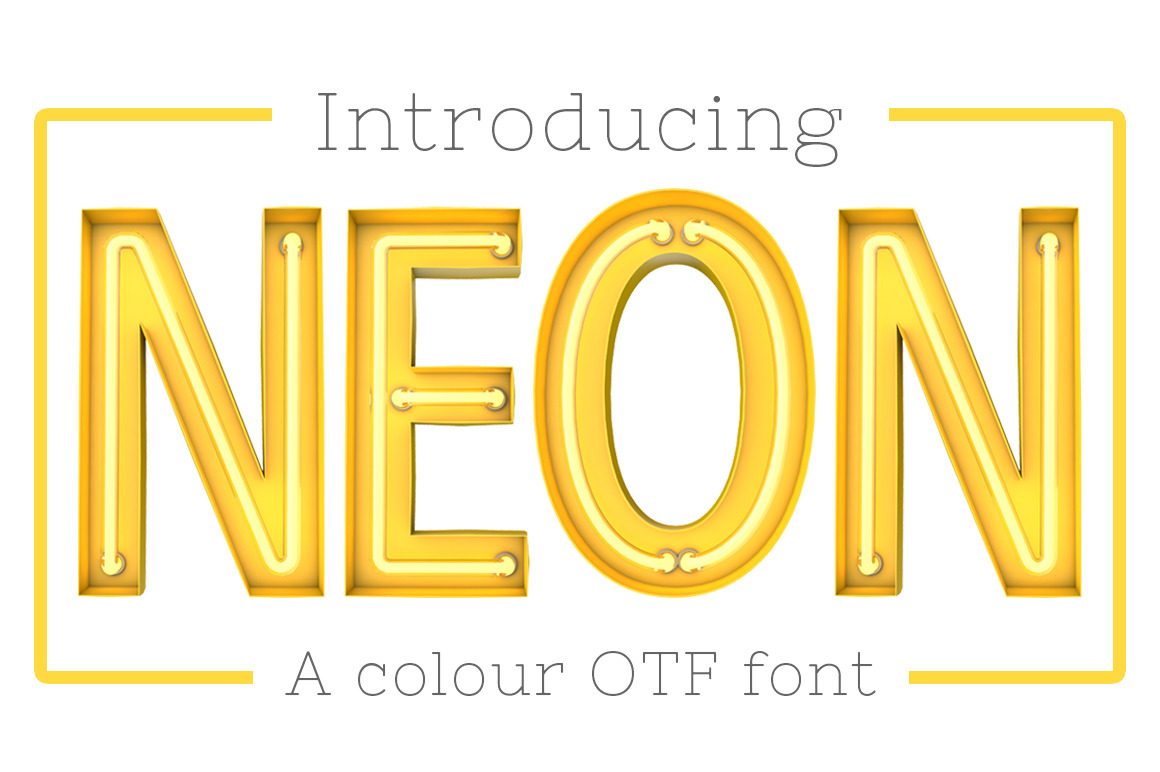
Neon - OTF colour font
Introducing NEON
Neon is a colour OTF font. Each letter has been created in 3D then turned into a simple to use font. Just download and start typing in beautiful yellow neon lettering.